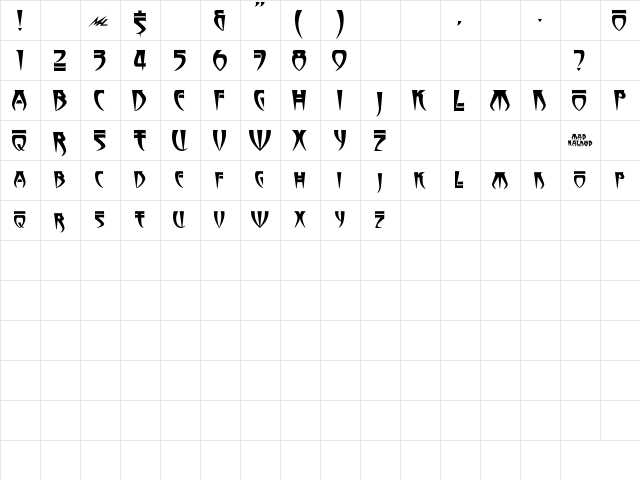
Stormbringer Bold
Design Context for Stormbringer Typeface
Stormbringer is a composed and adaptable typeface that performs quietly and consistently across a wide range of design contexts. Its bold stroke weight gives it real presence on the page.